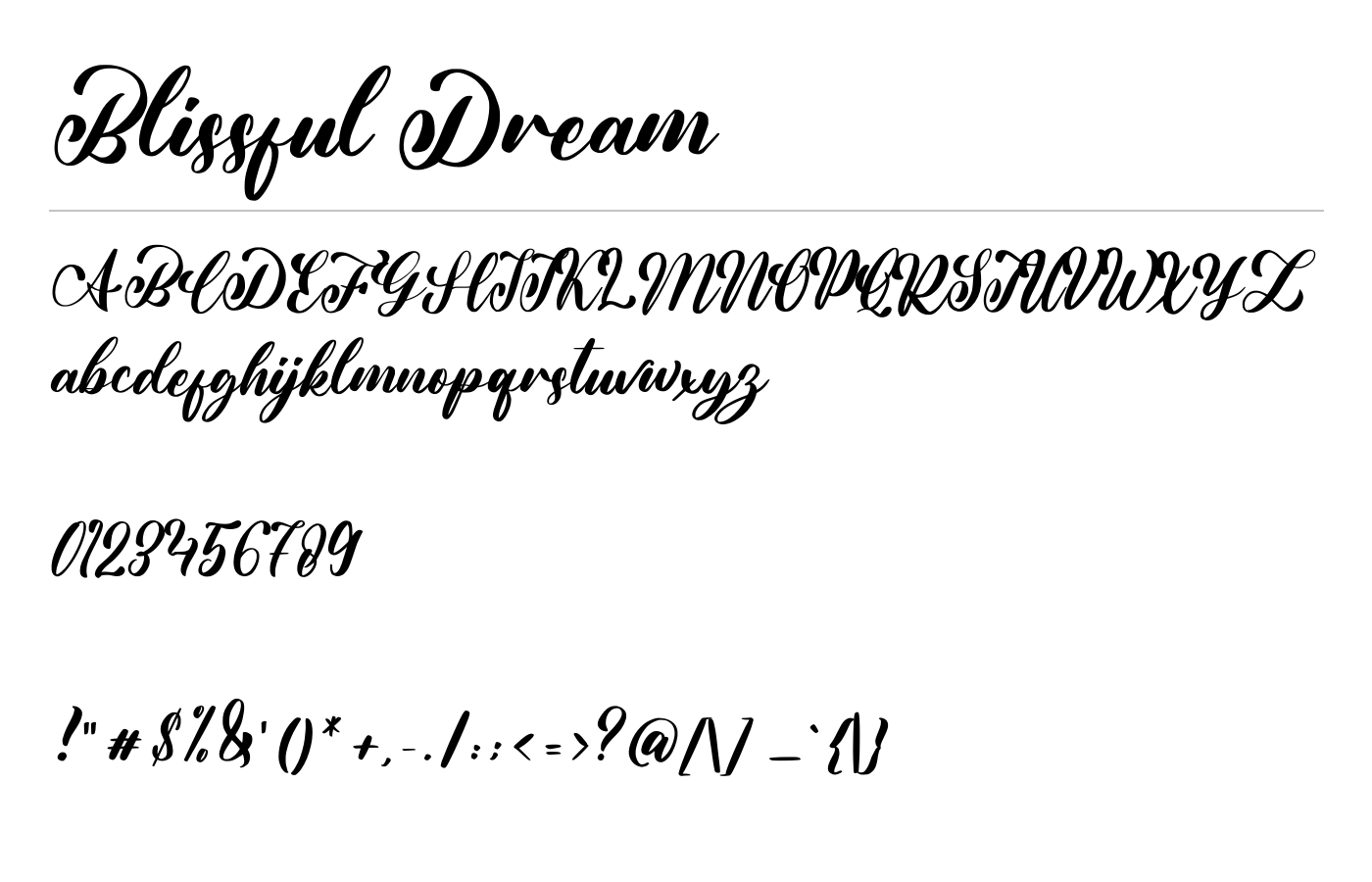
Blissful Dream is an elegant script font with smooth, flowing strokes and a medium weight that gives a balanced yet expressive feel. Its charming cursive style features graceful uppercase swashes and clean, readable lowercase letters, making it perfect for invitations, branding, and any design needing a touch of sophistication and warmth. This font works beautifully in decorative headlines or logos where a romantic, stylish, and approachable personality is desired.
Blissful Dream Font
About Blissful Dream Font